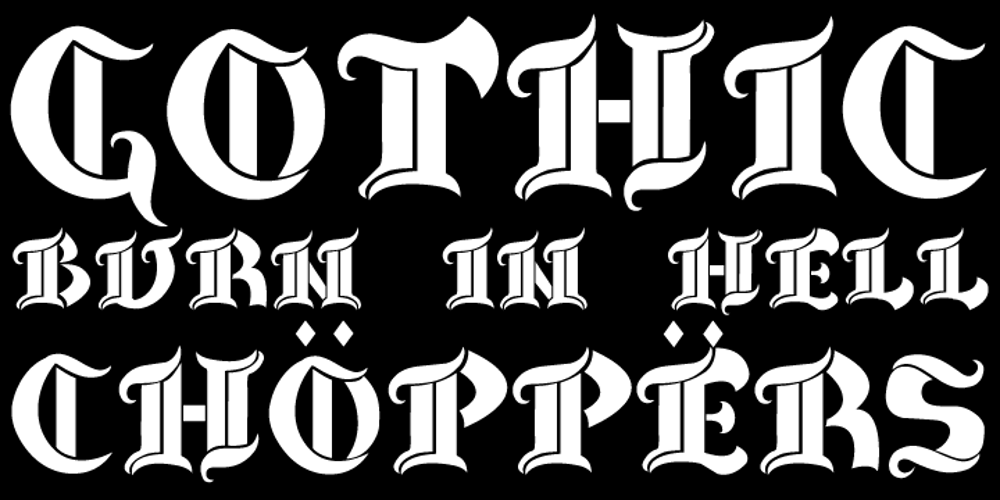
MHF Gothic
MHF Gothic font
MHF Gothic Font Family was designed by Jason Kochis and published by MetalHead. MHF Gothic contains 1 styles and family package options. Equal parts Sabbath and Blackletter. Its distinctive serifs will make any metalhead want to stand up and shout!